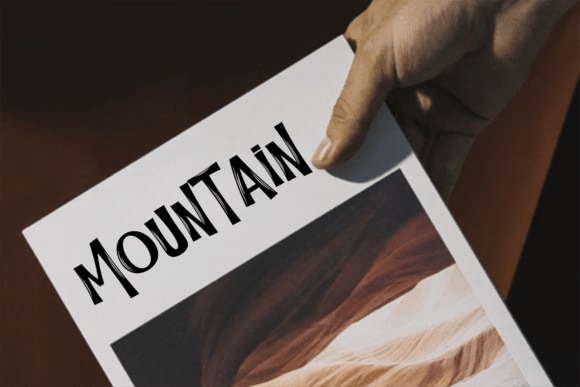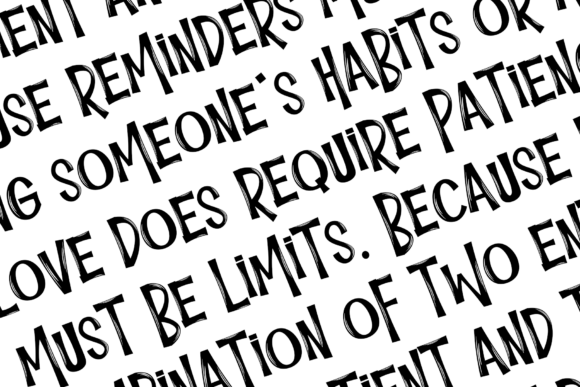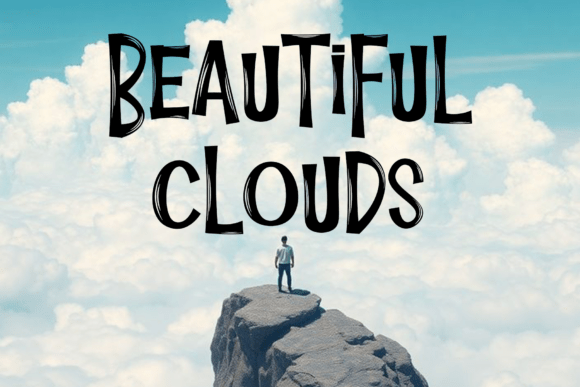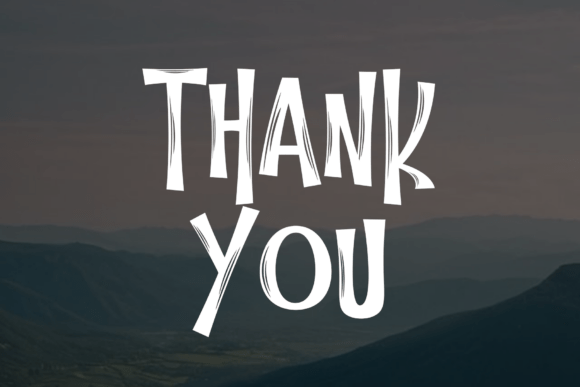
Introduction to Relaxing Brush Font
Have you ever stumbled upon a font that instantly makes you feel inspired? For designers, discovering the perfect font can be a game-changer. It’s that moment when you’re working on a creative project, and the right typography brings your idea to life. For many, this moment of serendipity is what makes the design process so rewarding.
One such font that’s sure to bring a smile to your face is the Relaxing Brush Font. This bold and expressive modern display font is perfect for making a confident, stylish impression. With its tall ascenders, dramatic swashes, and organic curves, it adds a touch of personality to any design.
Whether you’re designing a logo, creating Instagram posts, or developing business cards, the Relaxing Brush Font is an invaluable resource for designers. Its high-quality design and free download option make it an attractive choice for those looking to elevate their creative projects.
Key Features of Relaxing Brush Font
- Unique, hand-drawn design with a soothing aesthetic, perfect for creative projects requiring a calming atmosphere
- Perfect for use in digital art, print design, and other creative projects where a relaxing atmosphere is desired
- Unique brush strokes and subtle texture add a touch of organic feel, making it stand out from other fonts
Honest Review: Relaxing Brush Font
As a designer, I’m always on the lookout for high-quality design resources to elevate my creative projects. The Relaxing Brush Font caught my attention, and I was excited to give it a try.
What works well: ✨ The font’s soft, hand-drawn feel is perfect for creating a calming atmosphere in my designs. It’s also incredibly versatile, suitable for a wide range of projects from digital art to print materials. I love that it’s available for free download, making it an excellent resource for designers on a budget.
- Perfect for: digital art, print materials, branding, and marketing materials
Overall impression: I’m really impressed with the Relaxing Brush Font. It’s a fantastic addition to my design toolkit, and I’ve already used it in several projects. While it has some limitations, the benefits far outweigh the drawbacks.
The Relaxing Brush Font is perfect for design projects that require a calming and soothing atmosphere, such as wedding invitations, baby shower decorations, or wellness websites. You can also use it for free download or as a design resource for your next creative project.